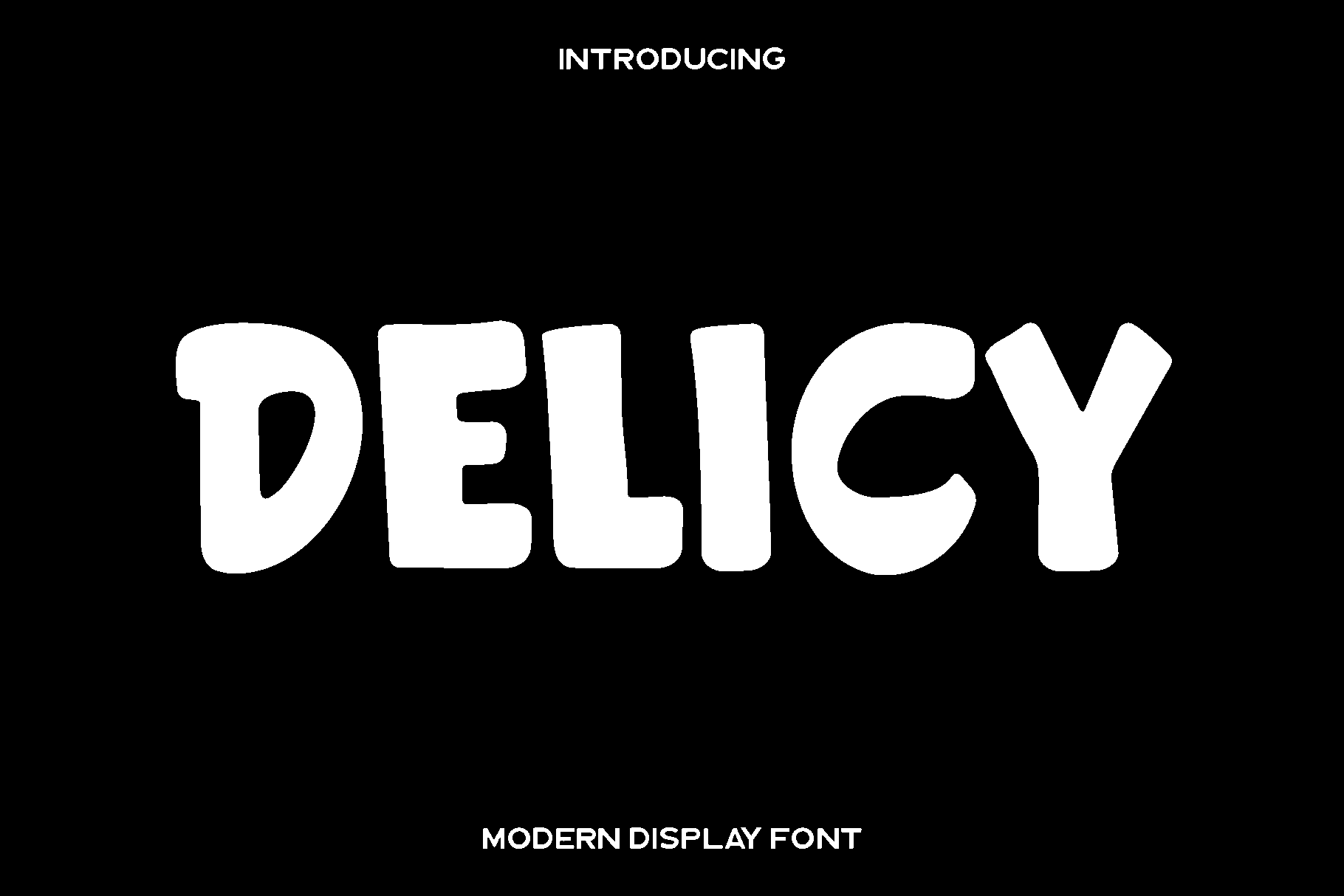
Delicy - Playful Modern Font
Delicy is a charming and expressive display font created to bring warmth, creativity, and personality into your designs. Designed with a friendly and modern spirit, Delicy combines smooth curves with confident letterforms that feel inviting and stylish. Its playful yet clean appearance makes it easy to use while still delivering a strong visual impact that connects instantly with audiences.
This font shines across a wide range of creative projects. Delicy is perfect for branding, Procreate lettering, craft designs, home decor, invitations, greeting cards, social media graphics, packaging, and creative merchandise. Its balanced style feels joyful and approachable, making it ideal for designs that want to communicate creativity, happiness, and originality.
Delicy was crafted to be versatile and practical while maintaining a unique character. The carefully designed glyphs, ligatures, and multilingual support allow your typography to flow naturally and look polished in both digital and print applications. Whether used in bold headlines or decorative accents, Delicy adds a delightful and memorable touch to every project.
Delicy Font Features:
• Uppercase and lowercase characters
• Numbers and punctuation
• Ligatures for smooth lettering flow
• Multilingual support
• Perfect for branding, crafts, decor, invitations, and creative lettering